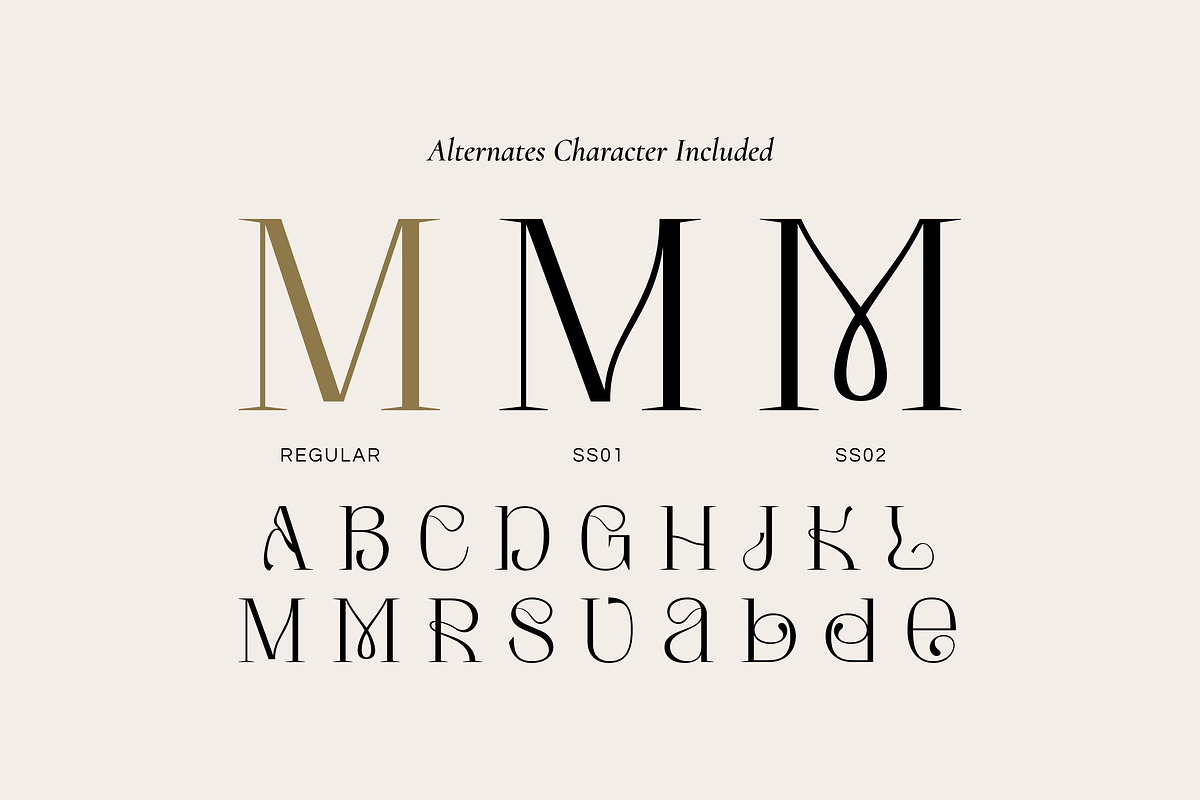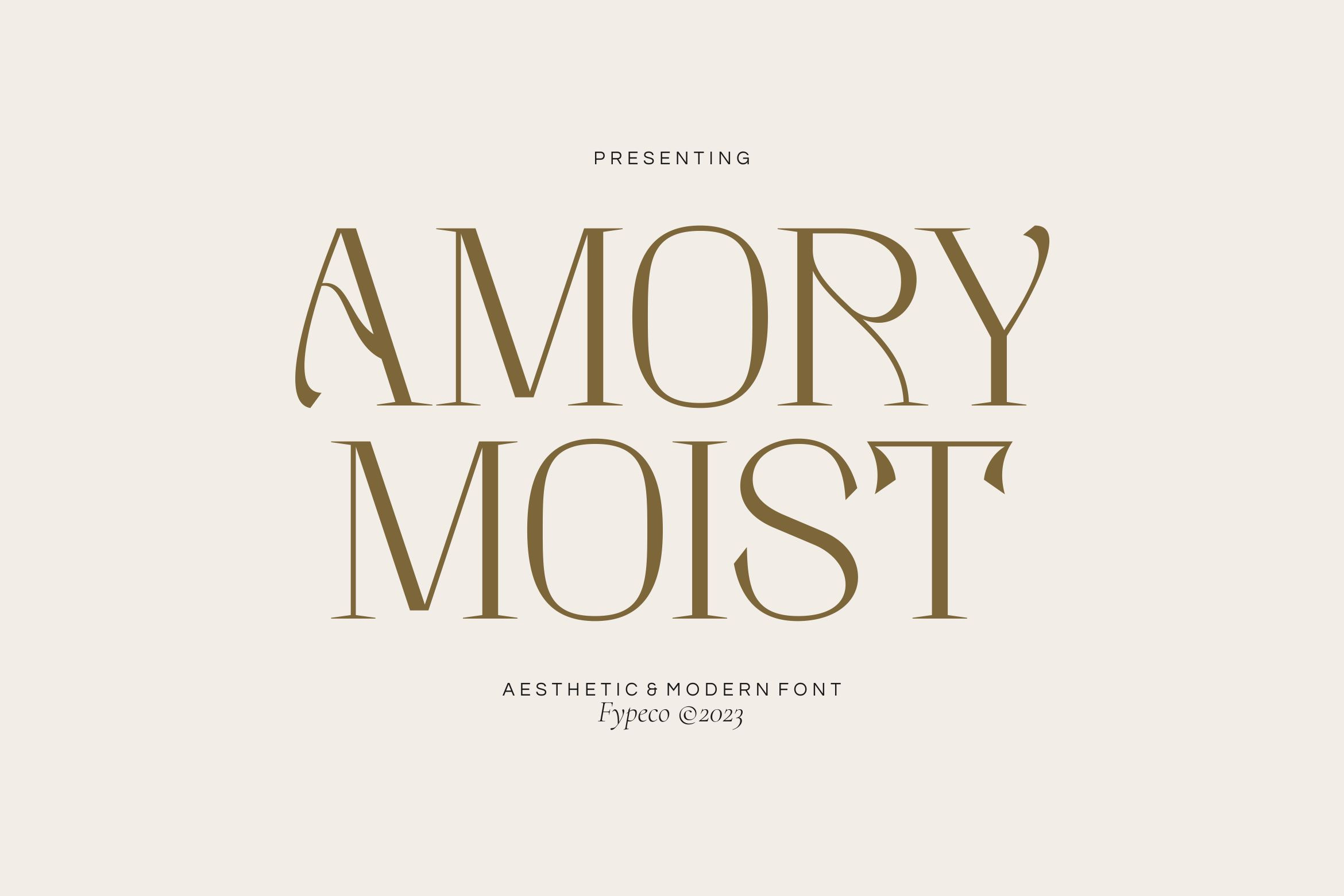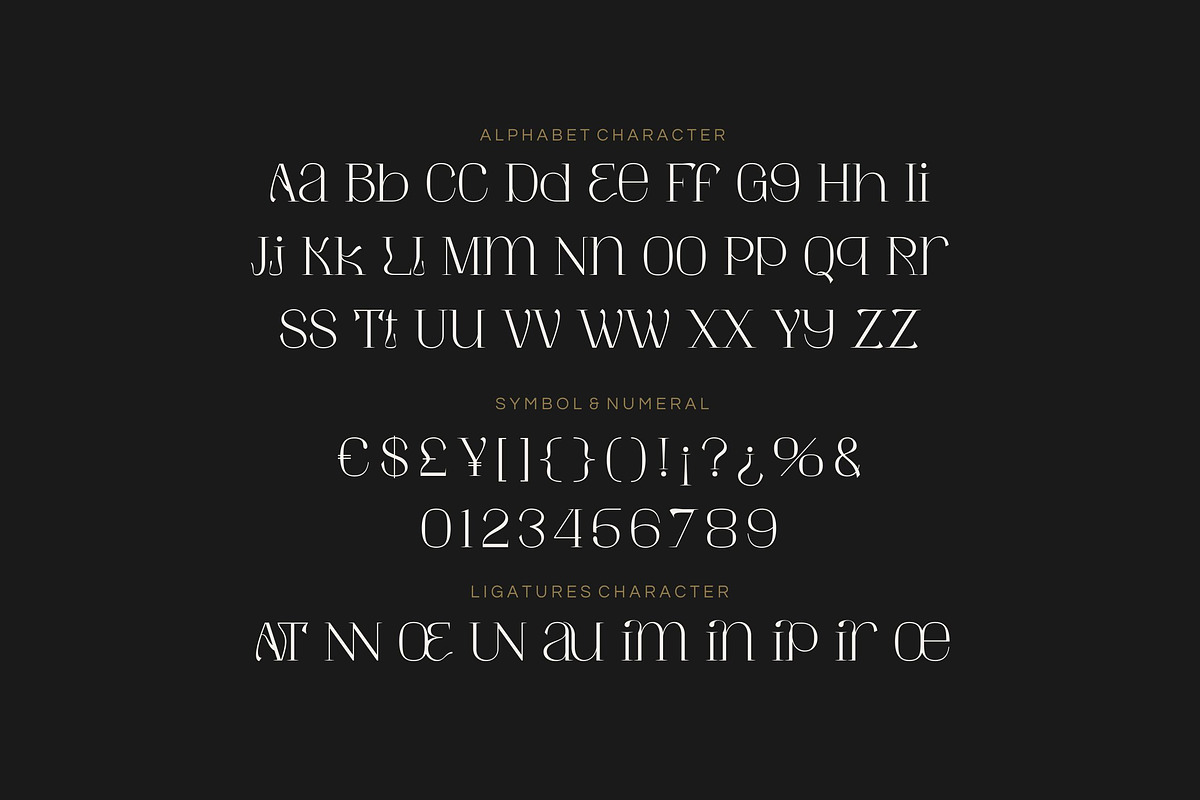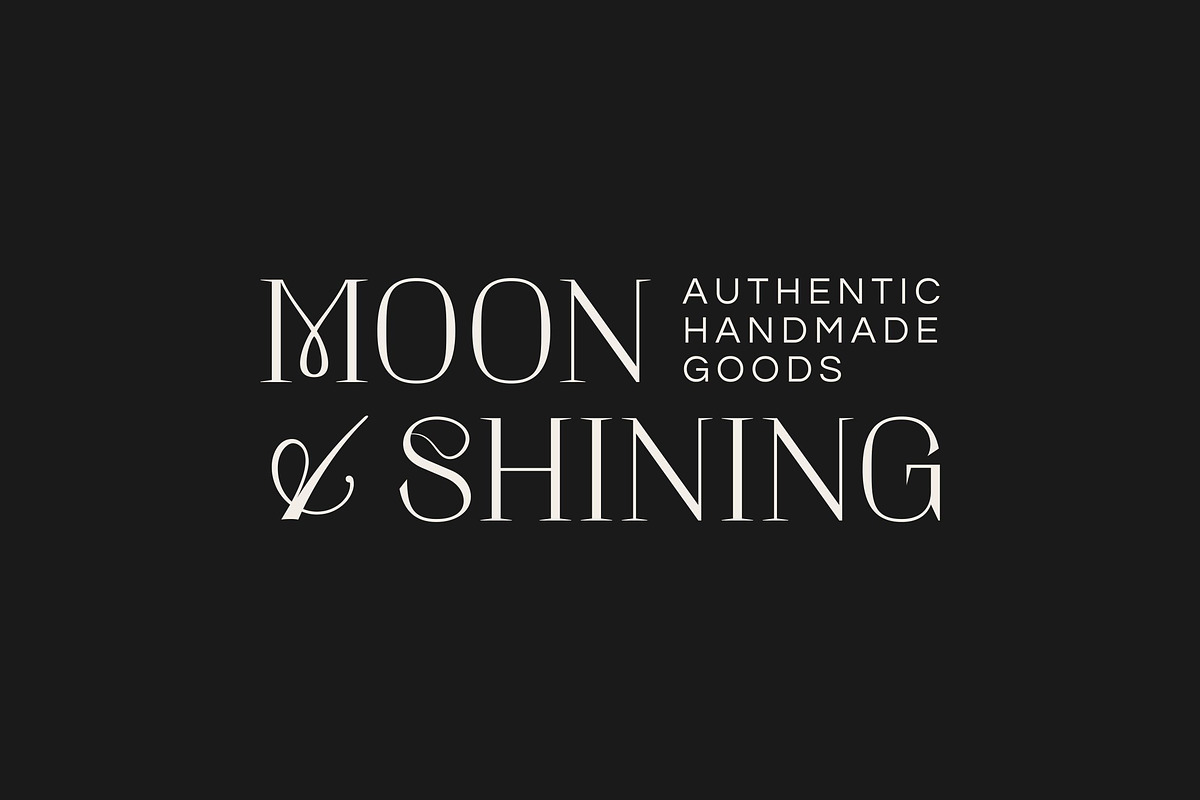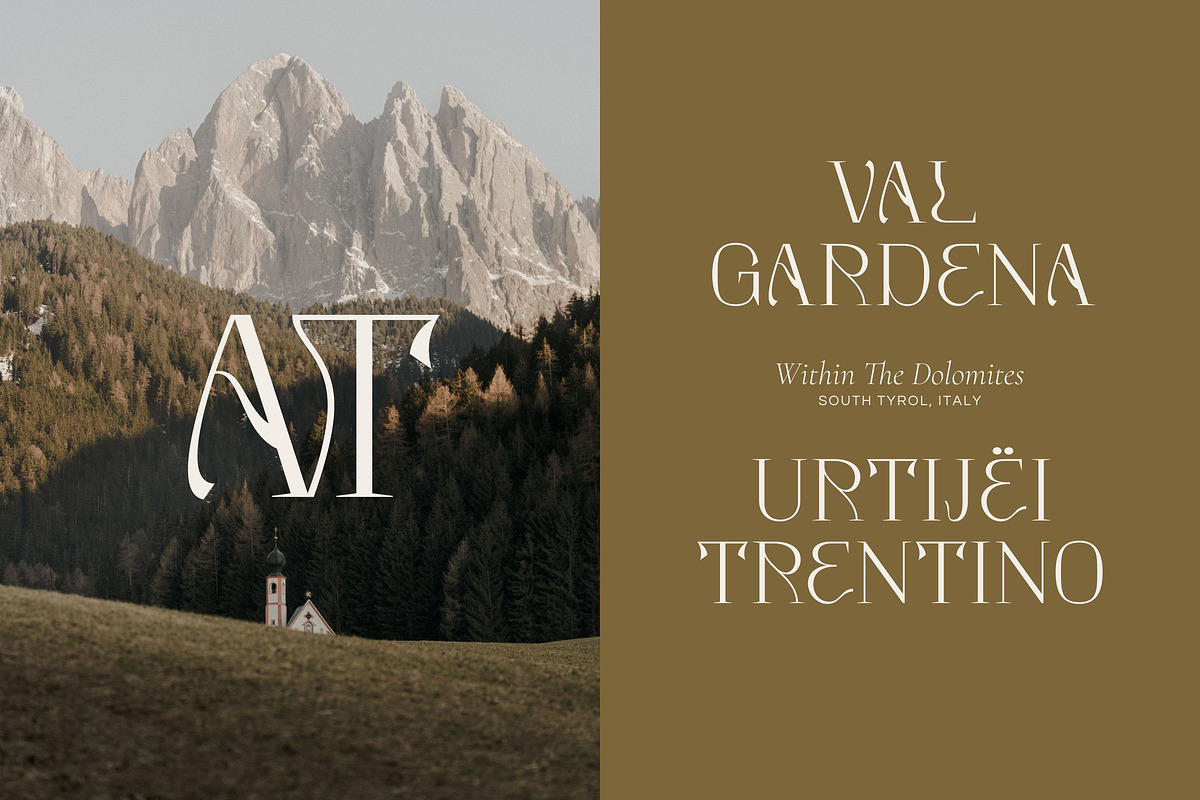
Amory Moist - Aesthetic Modern Font
Amory Moist is aesthetic modern font with alternates & ligatures. Its stylish and modern design give it a minimalist and classy feel. Perfect for a stunning logos, quotes, posts, blog posts. branding projects, magazine imagery, typography and much more.
- Alternates -Ligatures